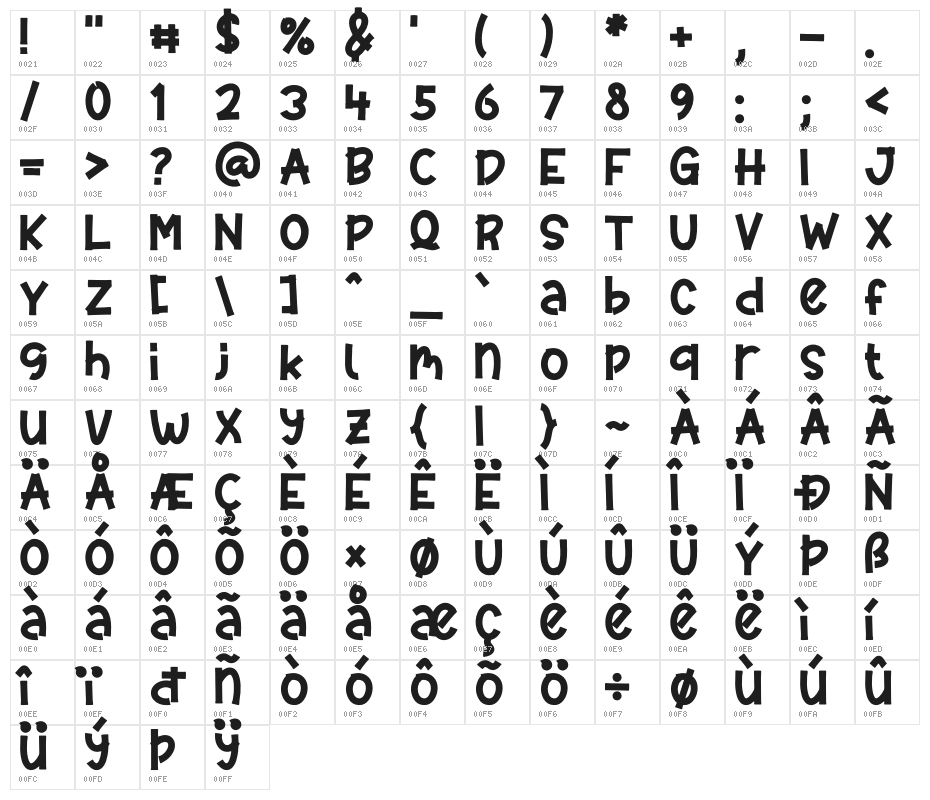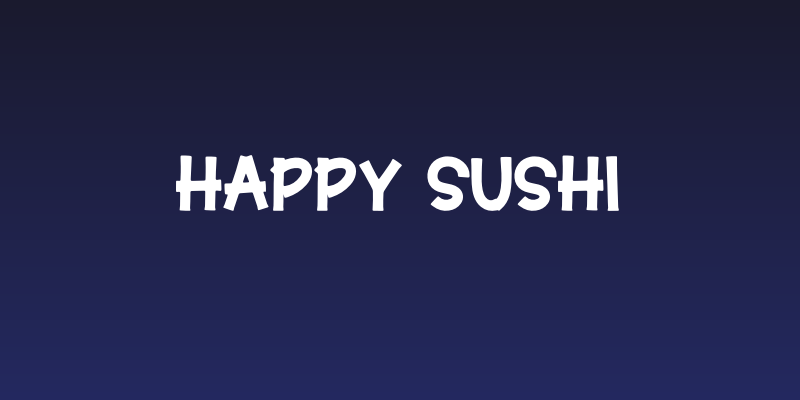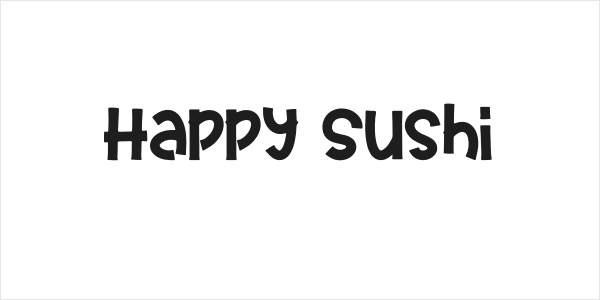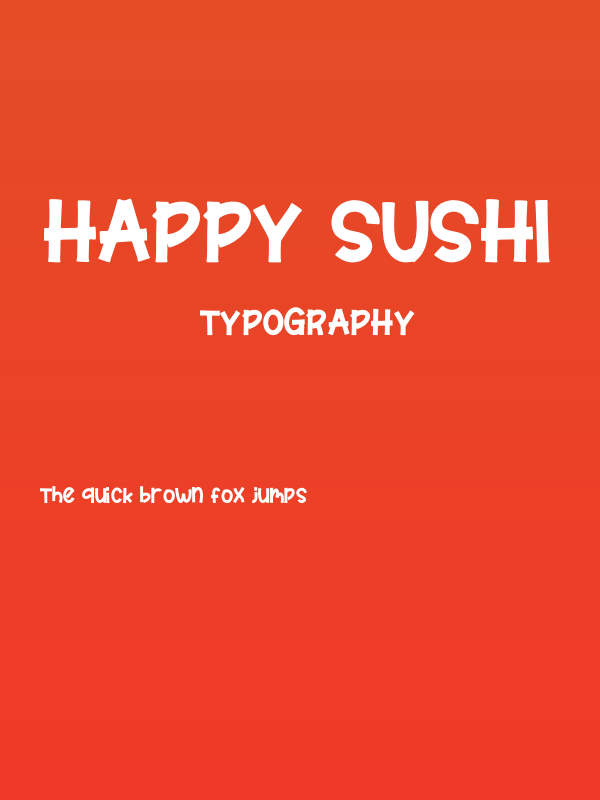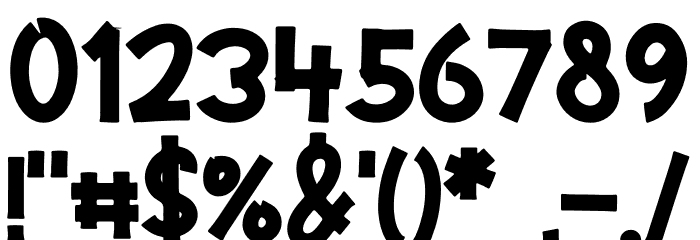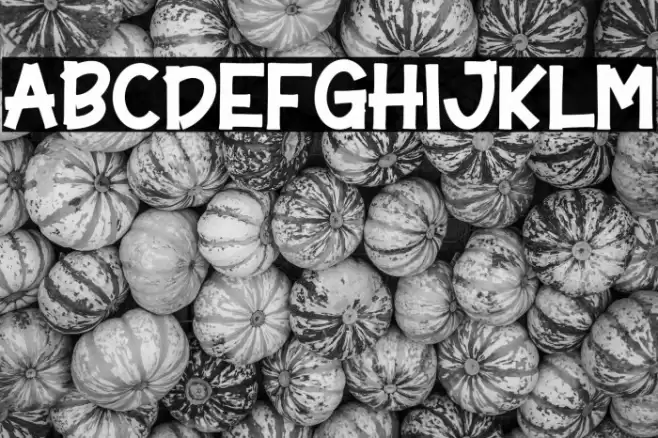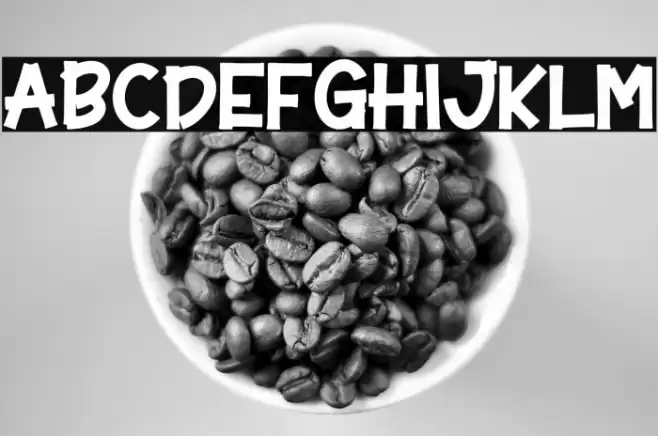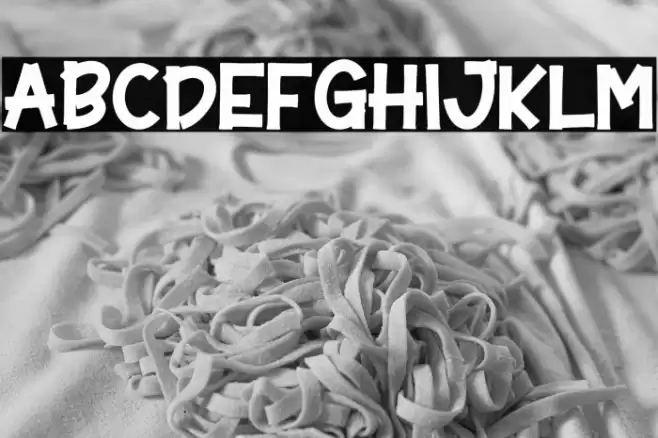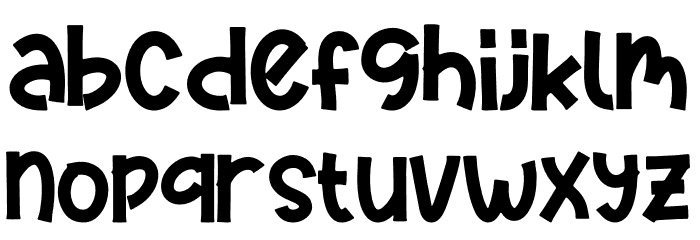
Happy Sushi Font
Happy Sushi Description
This playful and bold font features a hand-drawn style with a whimsical touch. The characters are thick and rounded, giving a friendly and approachable feel. The uppercase and lowercase letters maintain a consistent style, with a slightly irregular baseline that adds to its charm. The numerals and special characters are equally bold, ensuring readability while maintaining the font's unique personality. This font is perfect for projects that require a fun and informal tone, such as children's books, playful branding, or creative posters.
HAPPY-SUSHI UPPERCASE
HAPPY-SUSHI LOWERCASE
HAPPY-SUSHI OTHER CHARS
| Proposed Projects | Ideal for children's books, playful branding, creative posters, and informal invitations. |